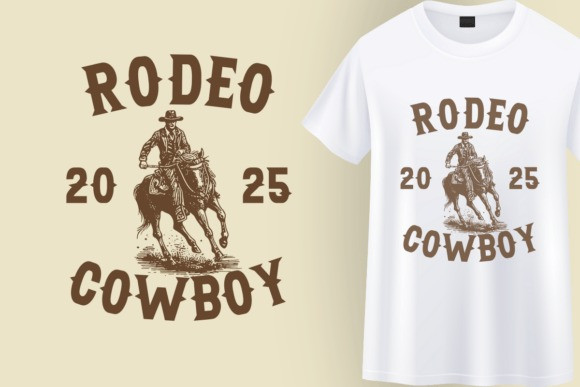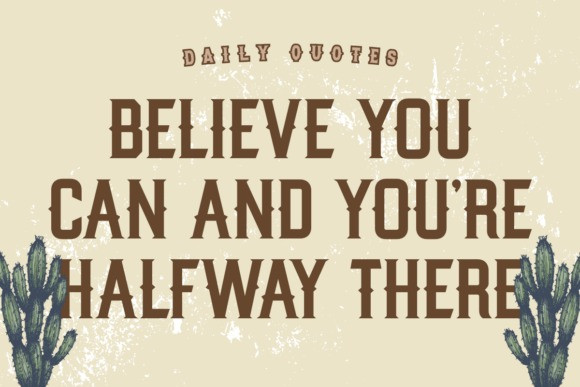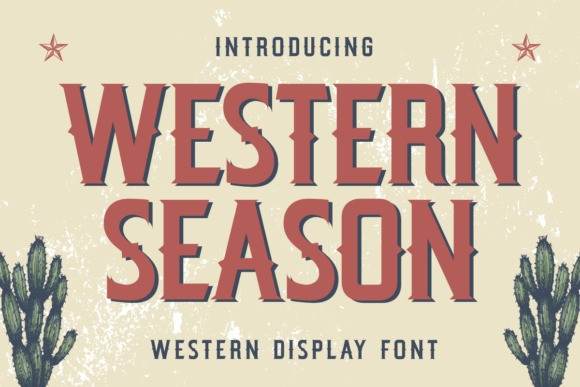
Western Season Font
Western Season Font is a bold western display font inspired by vintage cowboy style and the spirit of the Wild West. Featuring sharp serifs and rugged details, this typeface captures a rustic, adventurous, and retro vibe. Perfect for posters, logos, bar signage, rodeo events, country music designs, vintage packaging, and apparel, Western Season will give your project a strong western flair and authentic old west character.